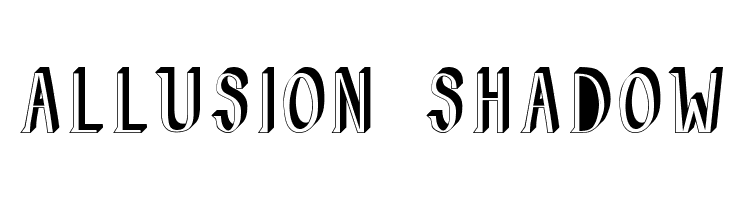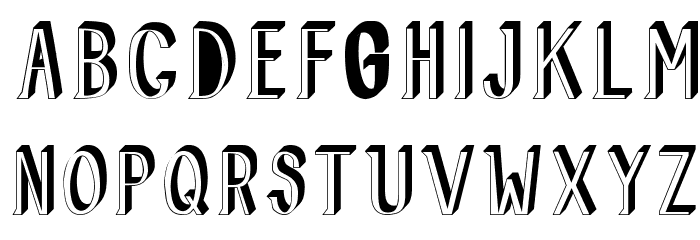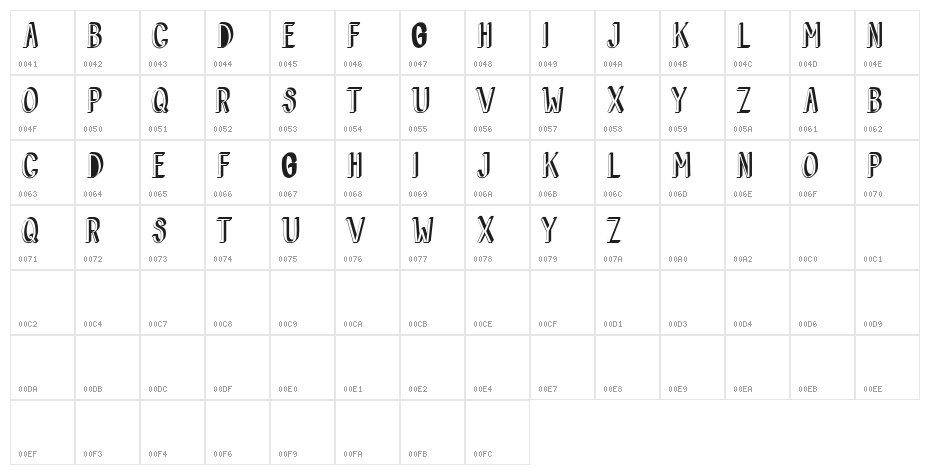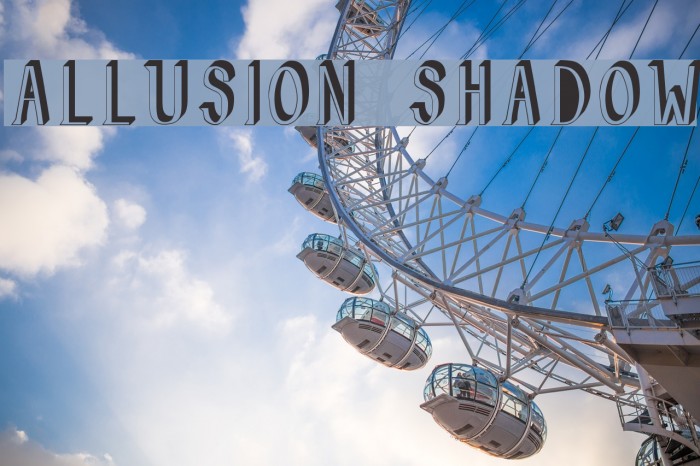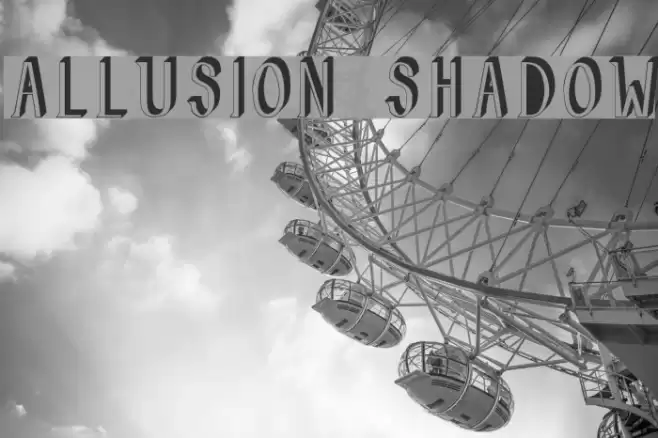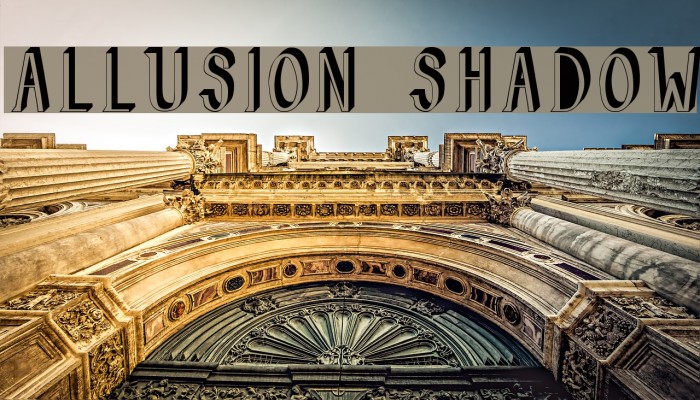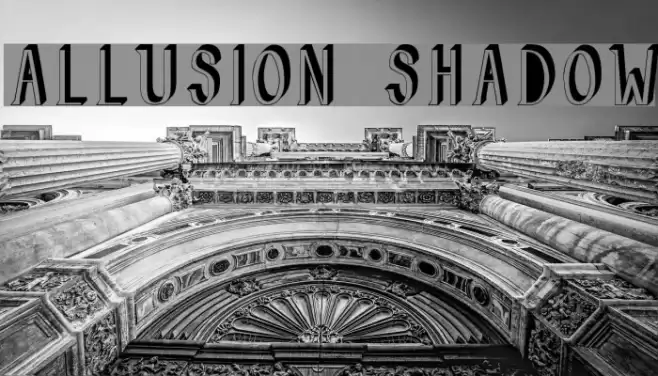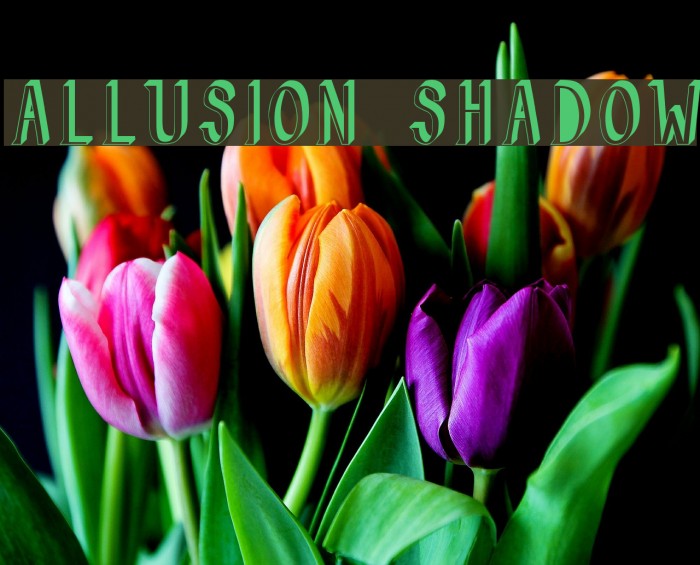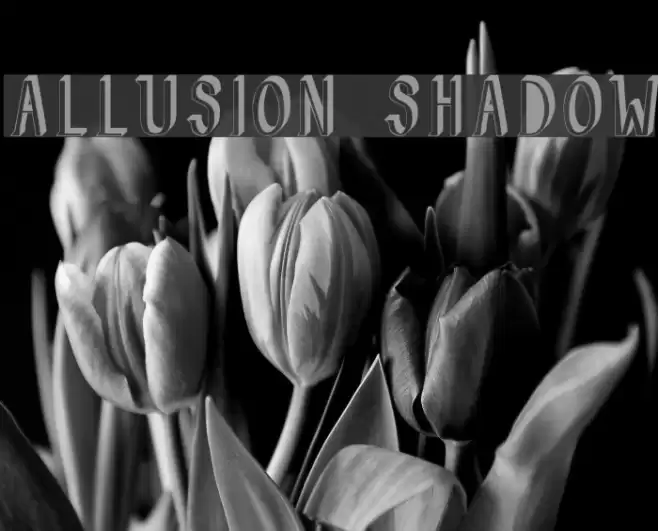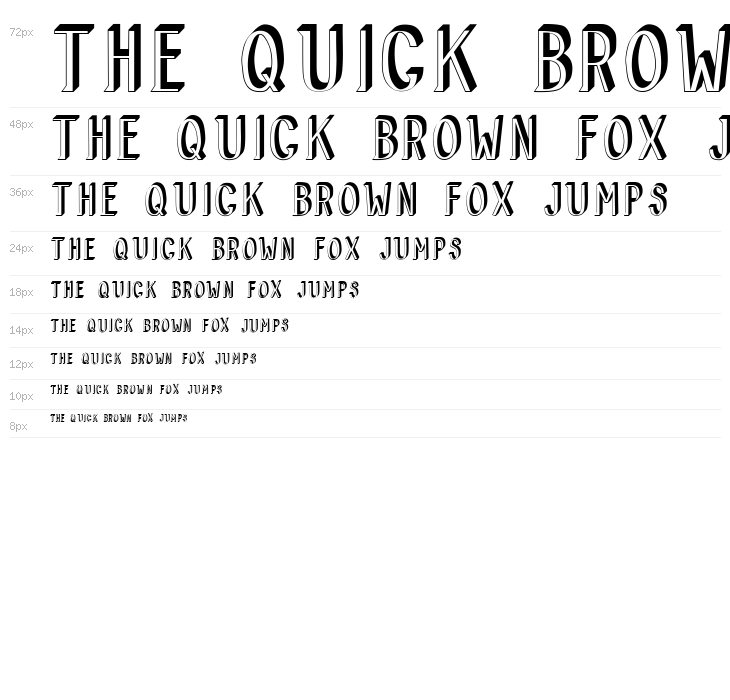
Allusion Shadow Font
Allusion Shadow Description
This font features a bold and striking design with a shadow effect that gives it a three-dimensional appearance. The uppercase letters are crafted with a strong presence, each character having a distinct shadow that enhances its visual impact. The font's style is reminiscent of vintage signage, making it ideal for projects that require a retro or classic touch. The shadow effect is consistent across all characters, providing a cohesive look. This font is perfect for creating eye-catching headlines, posters, or any design that needs a bold statement.
| Use Case | Headlines, Posters, Signage |
| Proposed Projects | Ideal for vintage-themed posters, eye-catching headlines, retro branding, and signage. |